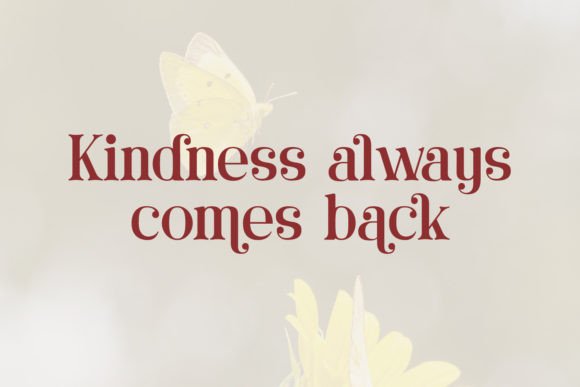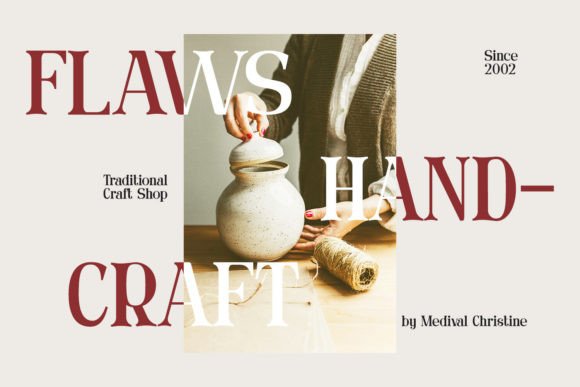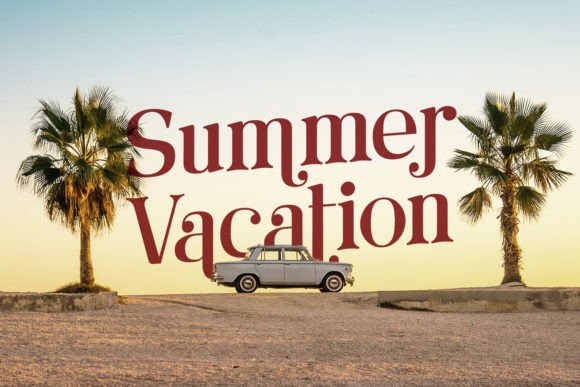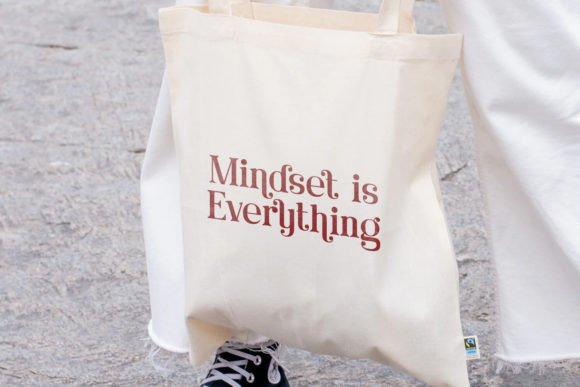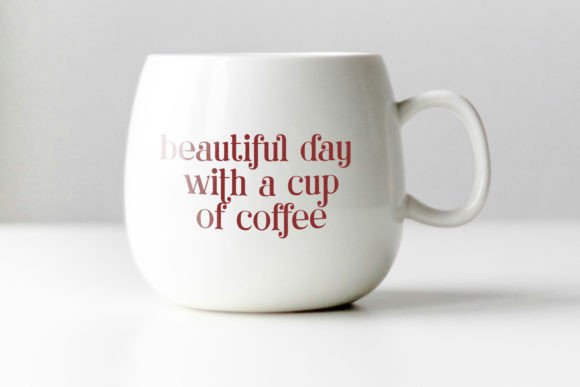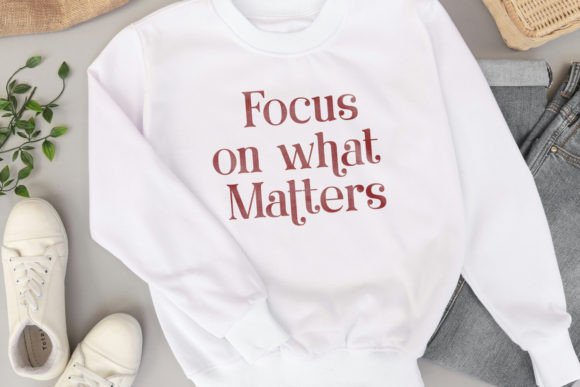
Introduction to Magical Beach Font
As a designer, there’s nothing quite like the rush of finding the perfect font to bring your creative project to life. You’ve spent hours pouring over free downloads, scouring design resources, and experimenting with different styles – but nothing seems quite right. That was my experience until I stumbled upon the Magical Beach Font, a game-changing serif font that instantly transported me to a tranquil coastal paradise.
With its clean lines, subtle curves, and transparent background, Magical Beach Font is a true masterpiece. Whether you’re working on a high-quality branding project or a creative web design, this font is sure to elevate your design to the next level. In this article, we’ll delve into the world of Magical Beach Font, exploring its unique features, design inspiration, and the value it brings to designers like you.
Key Features of Magical Beach Font
- High-quality design resource for creative projects, ideal for water-themed or tropical designs.
- Available in a transparent background option, allowing for seamless integration with various design elements.
- Unique, hand-drawn style with a whimsical touch, adding a touch of magic to any design project.
- Perfect for use in graphic design, digital art, and other creative projects where a unique, high-quality font is required.
Honest Review: Magical Beach Font
I recently stumbled upon the Magical Beach Font, and I’m excited to share my honest thoughts on this design resource.
What works well: ✨ The font’s high-quality design is truly magical, making it perfect for a creative project that needs a touch of whimsy. The transparent background option is also a great feature, allowing designers to easily layer the font over images or other design elements.
Here are some of the font’s key features:
- High-quality design suitable for creative projects
- Transparent background option for easy layering
- Great for designers looking for a unique and eye-catching font
However, there are a few limitations: ⚠️ The font’s size options are somewhat limited, and it may not be suitable for large-scale text or headings.
Overall, I’m impressed with the Magical Beach Font. It’s a great design resource for designers looking for a unique and high-quality font for their creative projects. With its transparent background option and free download, it’s definitely worth checking out.
Tips for Getting the Most Out of Magical Beach Font
To get the most out of the Magical Beach Font, consider using it with a transparent background to create a seamless design. You can also pair it with other design elements, such as images or shapes, to add depth and visual interest to your project.
Common Use Cases for Magical Beach Font
The Magical Beach Font is ideal for a variety of creative projects, including beach-themed designs, summer invitations, and outdoor event graphics. It’s also a great choice for designers who want to create a high-quality, professional-looking design with a touch of whimsy.
Alternatives to Magical Beach Font
Compared to Magical Beach Font, Pacifico has a more refined and classic feel, making it ideal for formal events or high-end branding.
Q: Does the Magical Beach Font have a transparent background?
Yes, the Magical Beach Font has a transparent background, making it perfect for designing over images or videos. This feature allows you to create a seamless and professional-looking design.